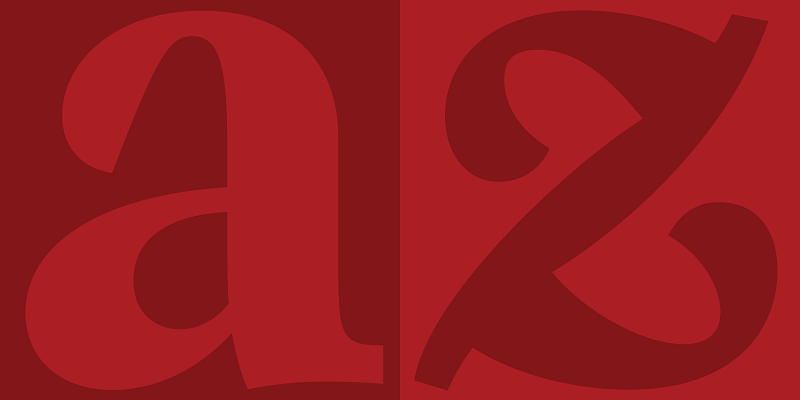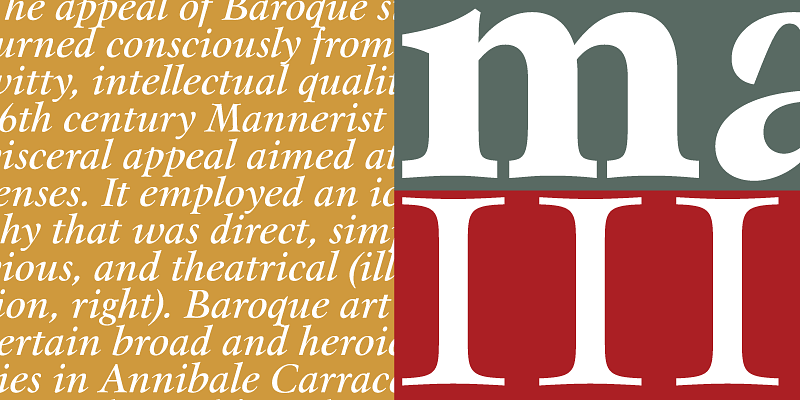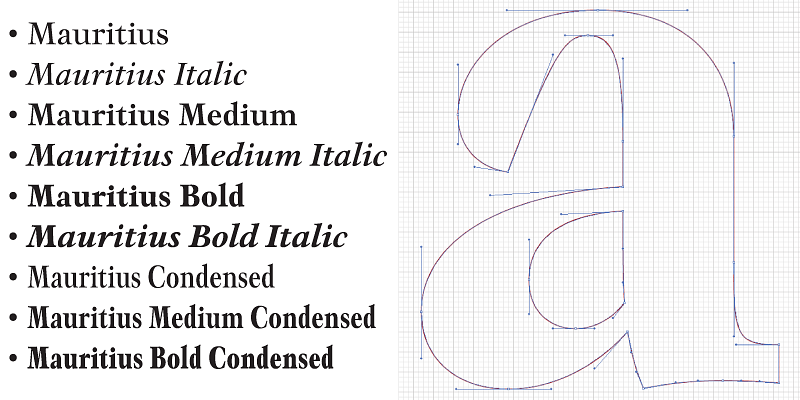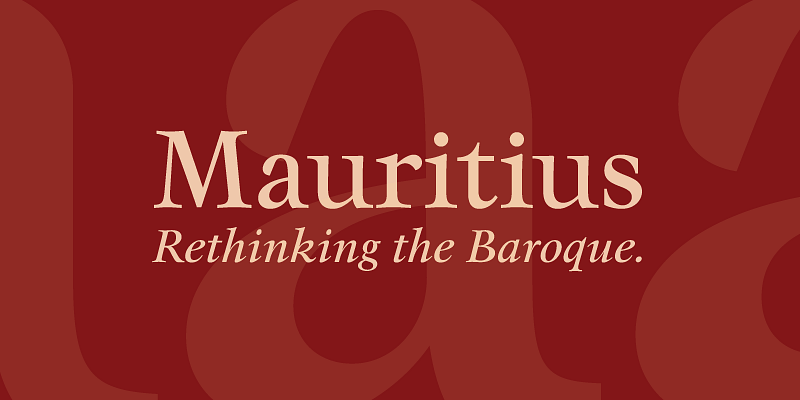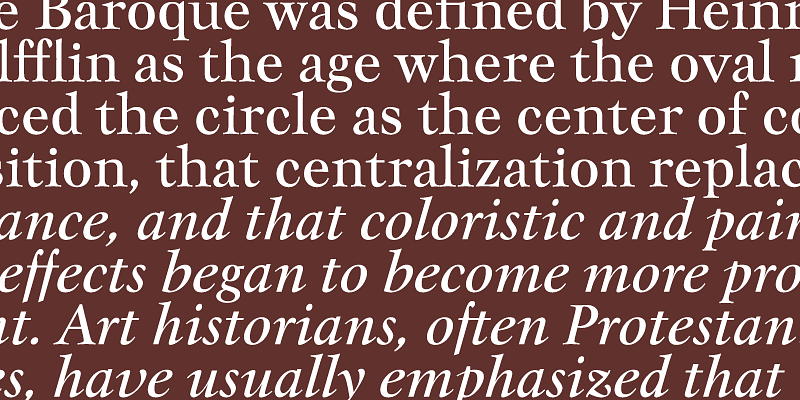
This is the retooling and expansion great German designer Georg Trump’s last oeuvre. He started working on it in 1965. Weber previewed it in 1967, but never officially published it in metal because cold type took over shortly thereafter.